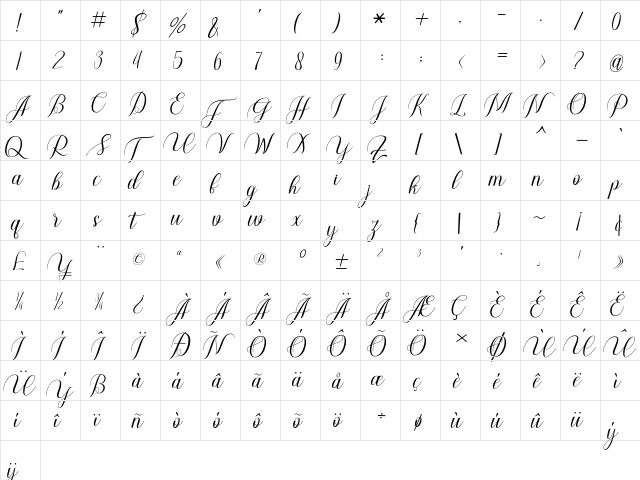
Genta Font Regular
| Foundry | Petterco |
| Designer | Petterco |
Design Context for Genta Font Typeface
Genta Font is a composed and adaptable typeface that performs quietly and consistently across a wide range of design contexts.